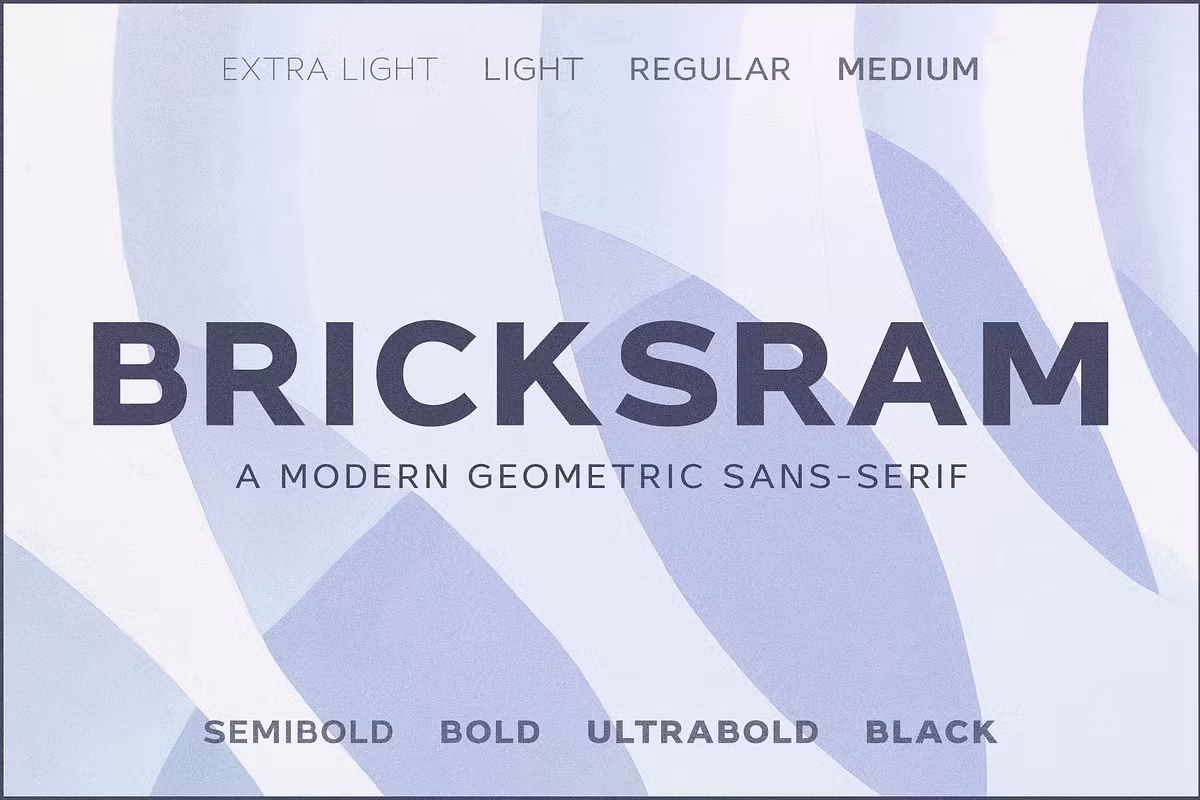
Bricksram - Modern Geometric Sans Font Free Download is a sleek and contemporary sans-serif typeface with geometric precision and a clean, minimalist design. Perfect for modern branding, logos, editorial layouts, websites, and user interfaces, Bricksram offers excellent readability with a stylish edge.
Its geometric shapes and balanced proportions make it ideal for both digital and print applications, adding a polished, professional touch to any project. Whether you’re designing for technology, fashion, or corporate projects, Bricksram provides versatility and modern elegance to your typography.